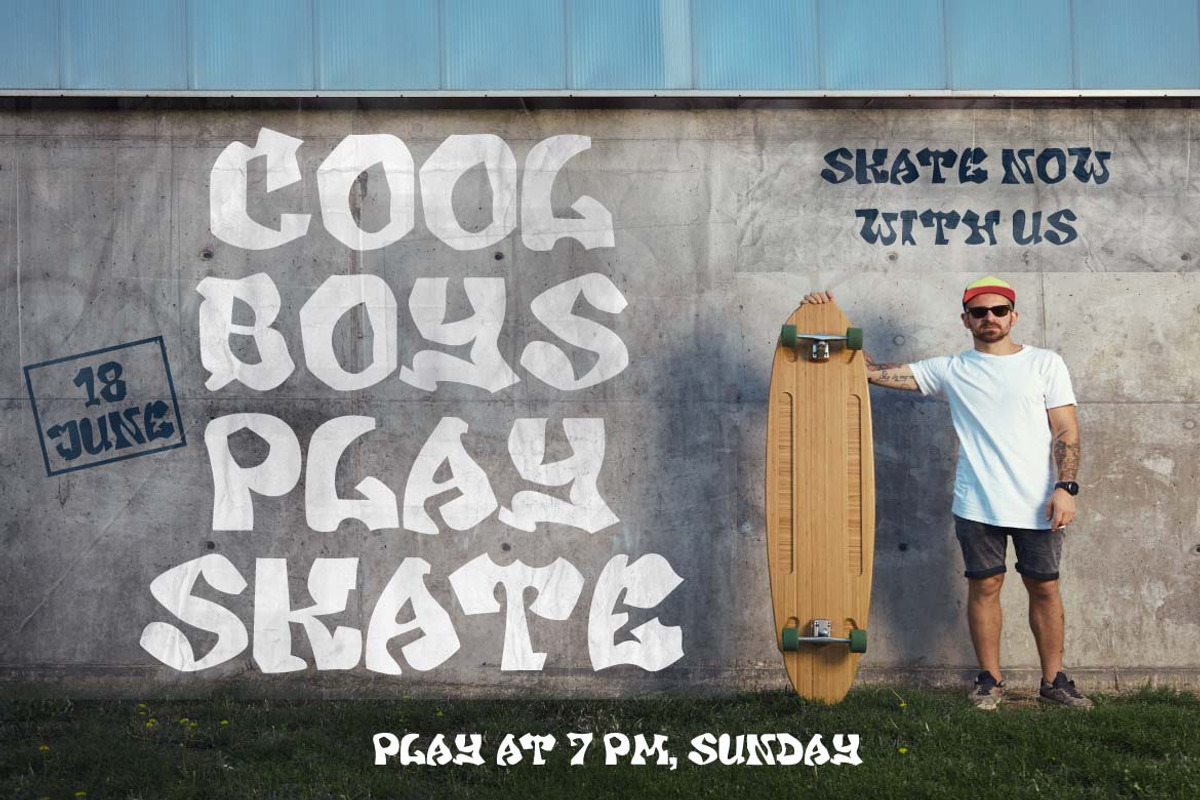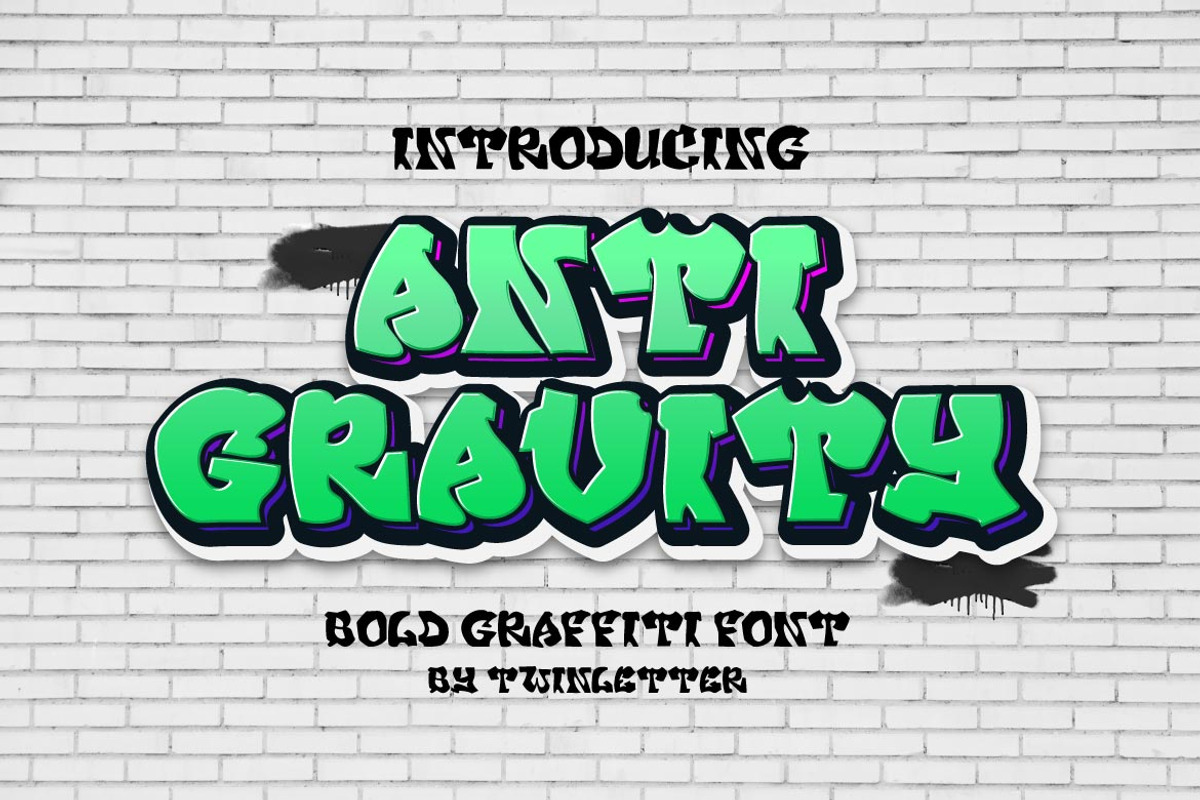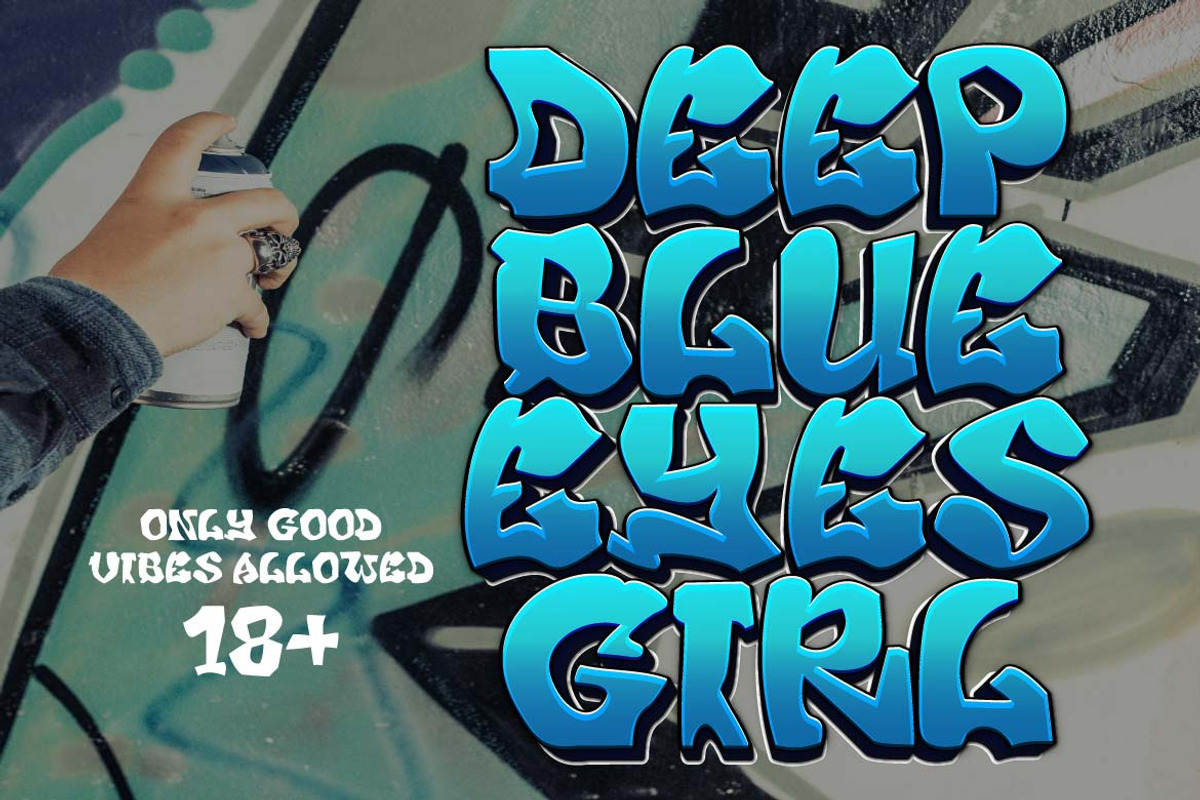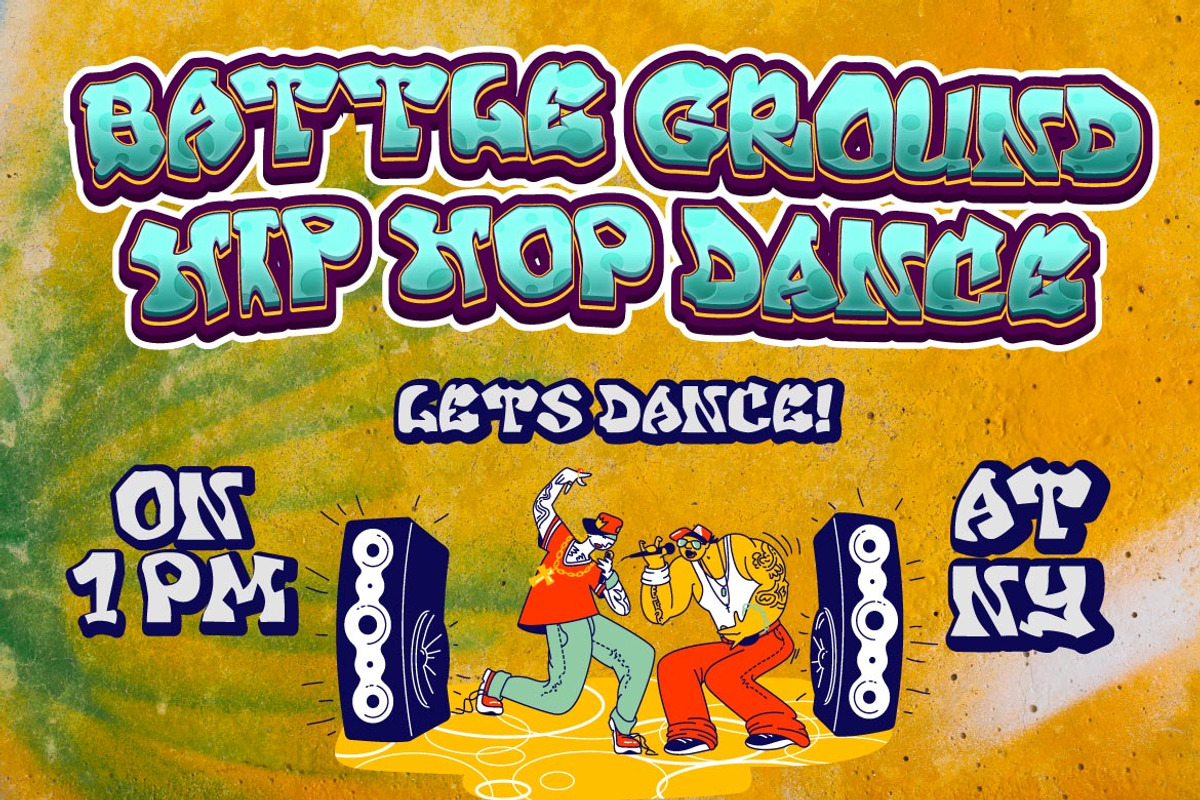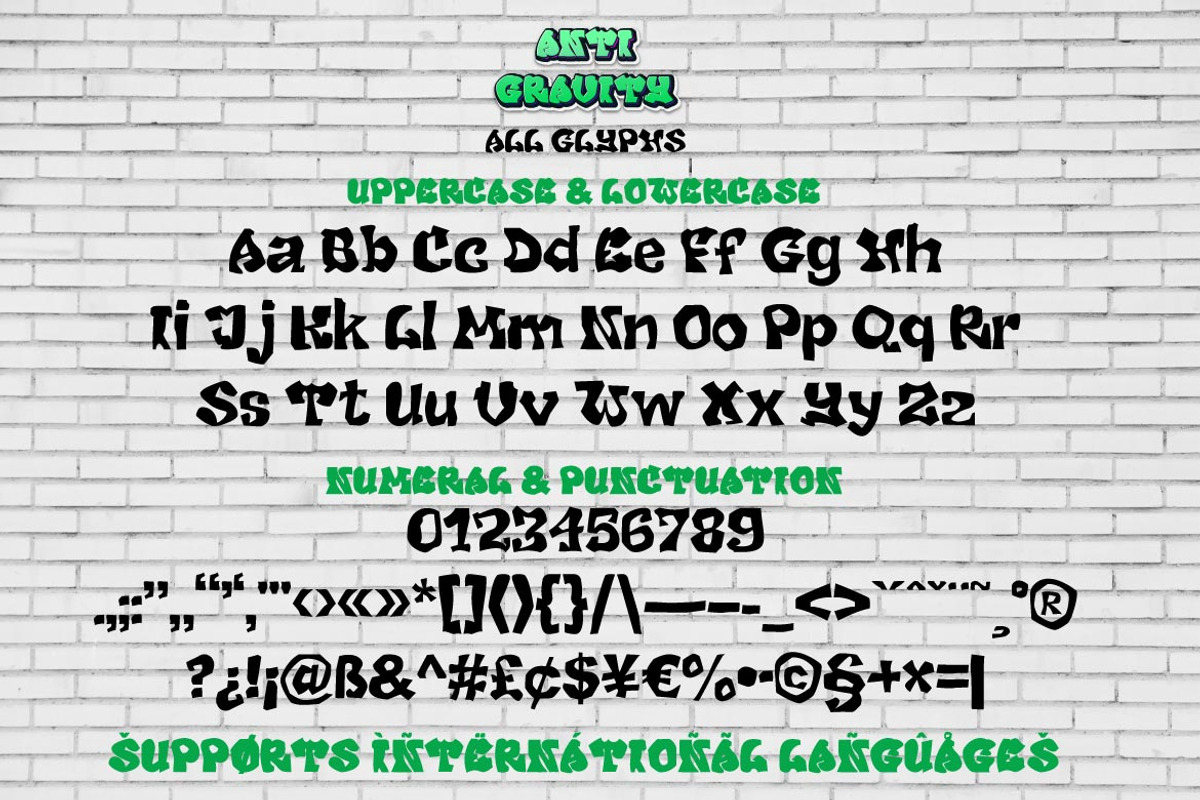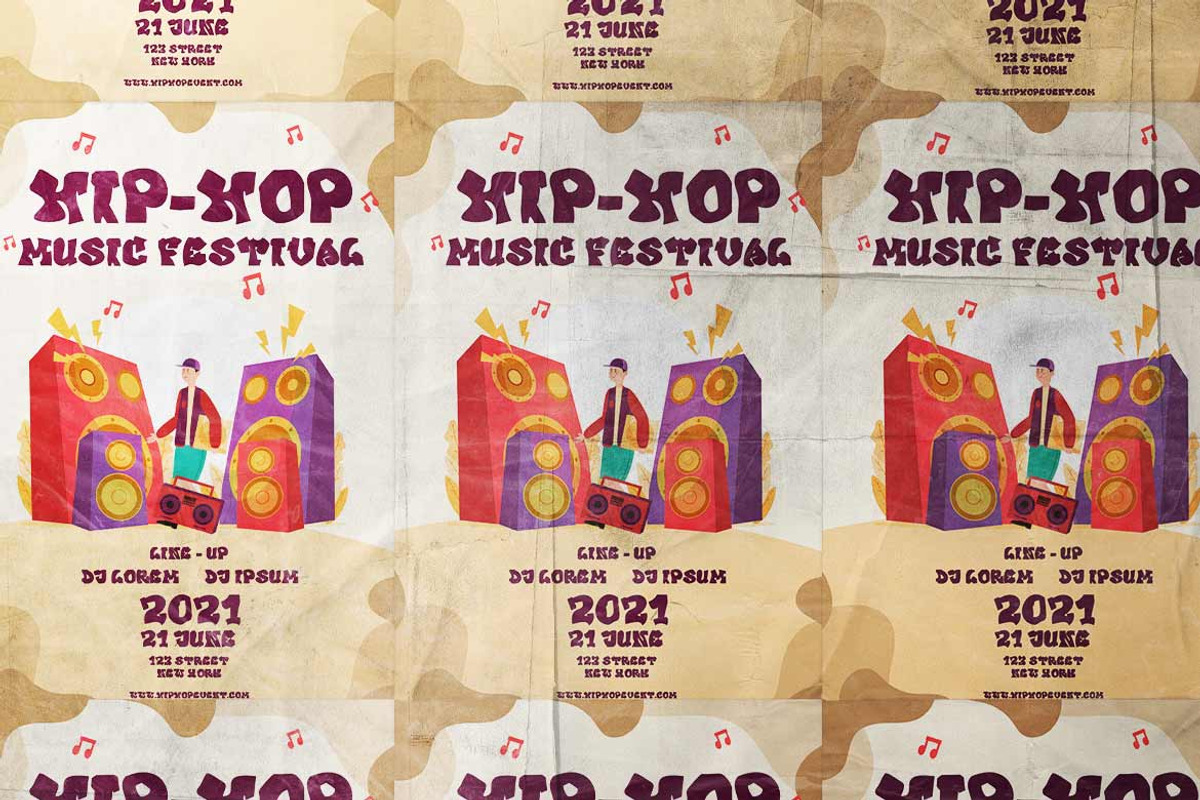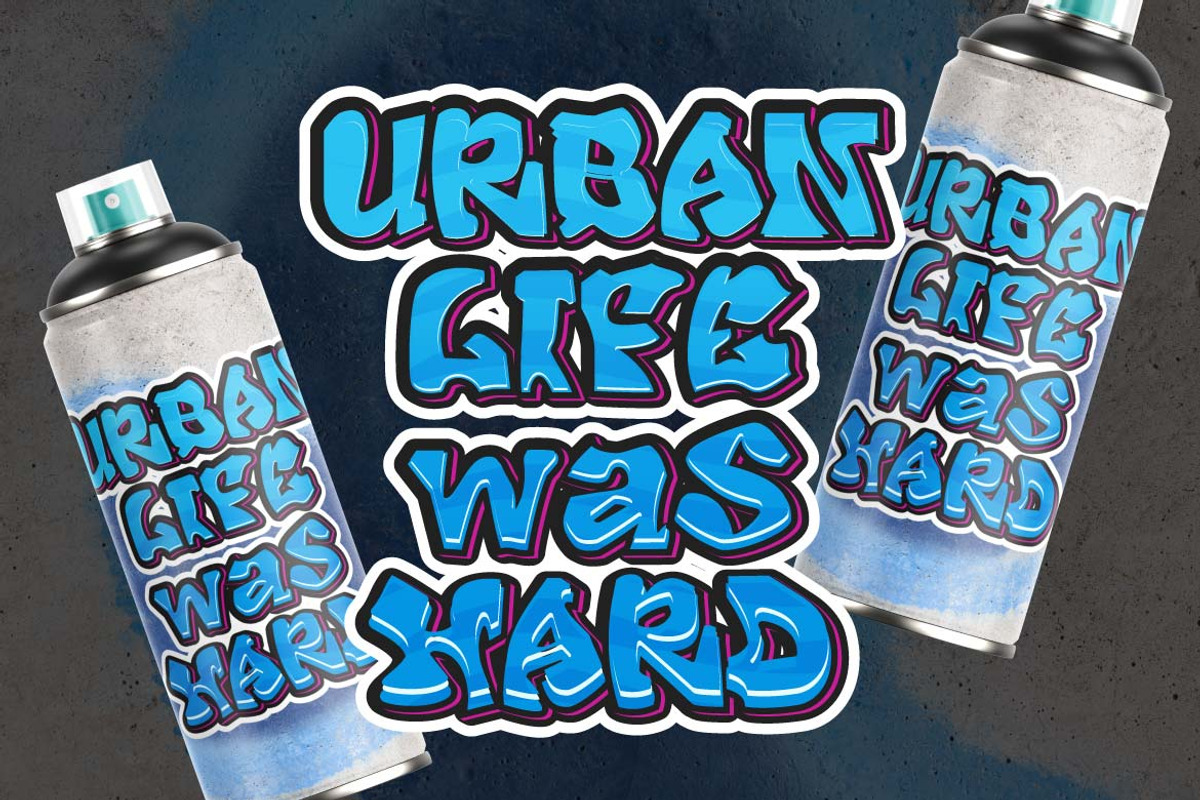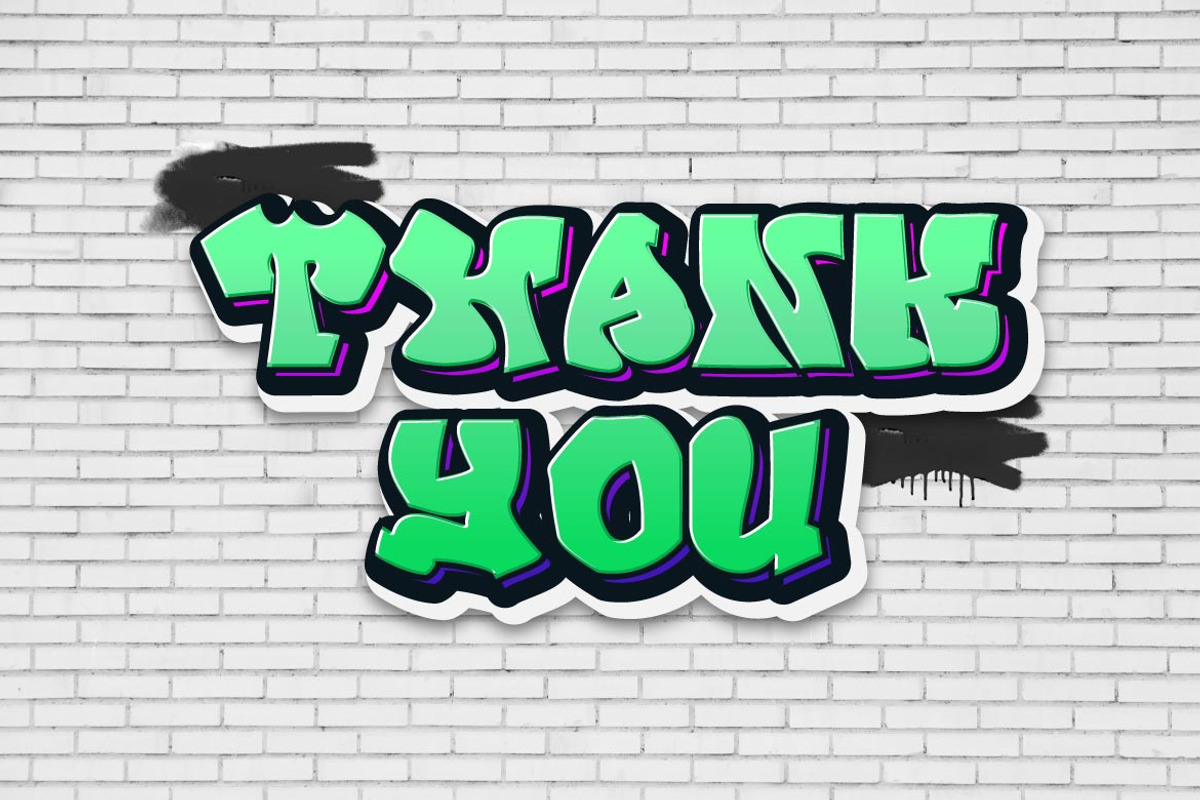
Anti Gravity
Anti Gravity is a typeface with a unique and entertaining graffiti theme; by utilizing this font, your project will be flawless in appearance. Don’t lose any more time; start taking quick and easy steps to produce stunning projects with this font. Your project will have a natural, unique, and professional appearance.
This graffiti font is great for product logos, poster titles, headlines, packaging, film titles, logotypes, gorgeous writing, and trendy graffiti designs, among other things.